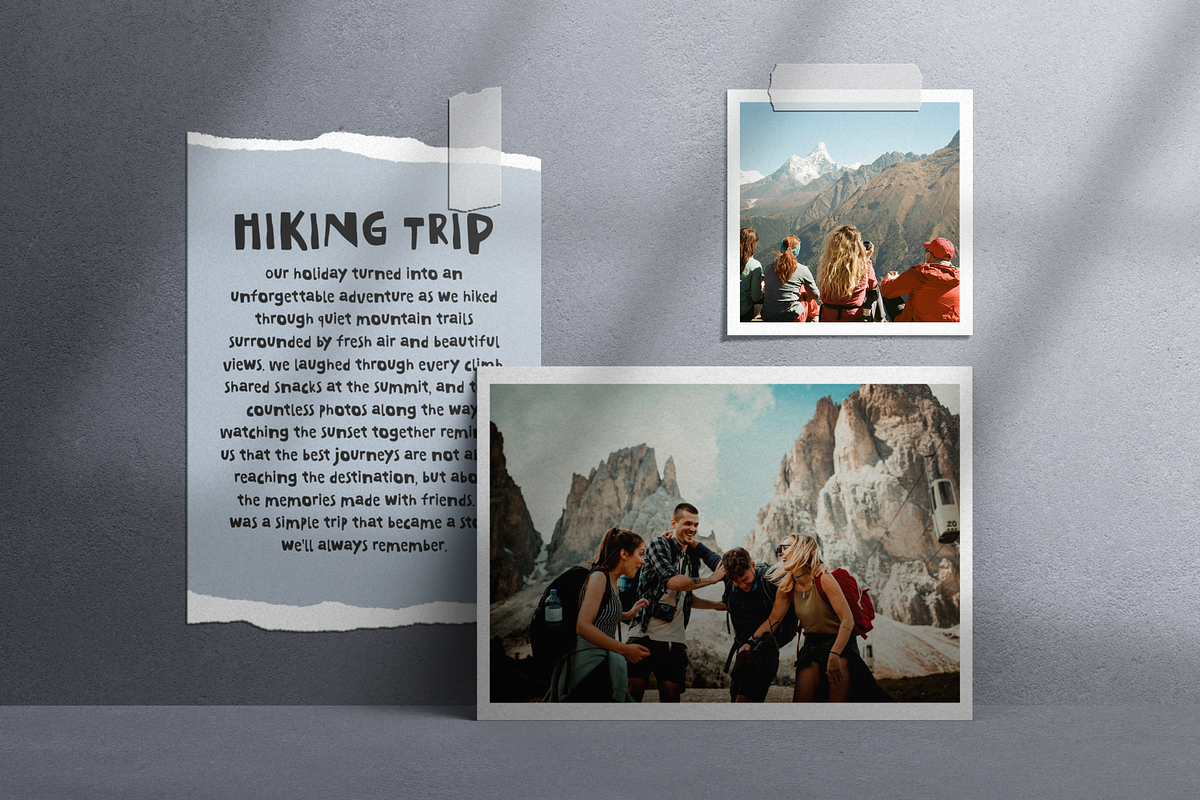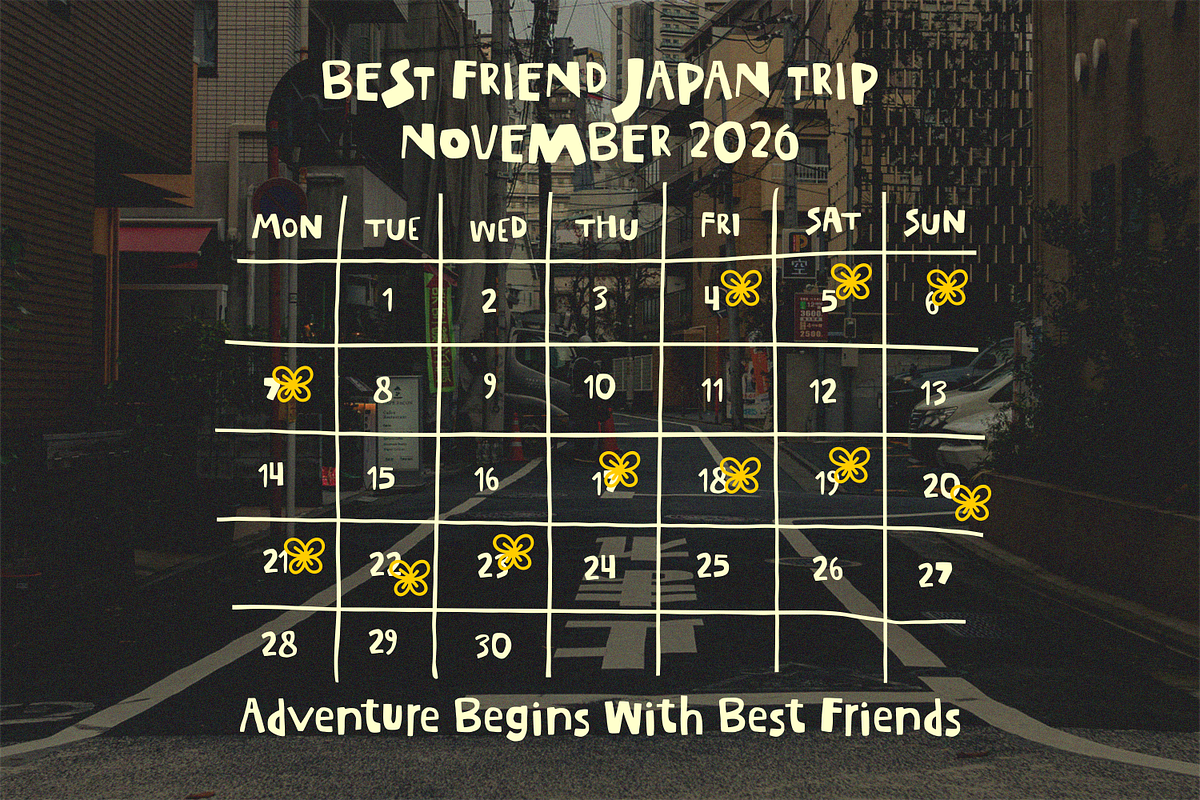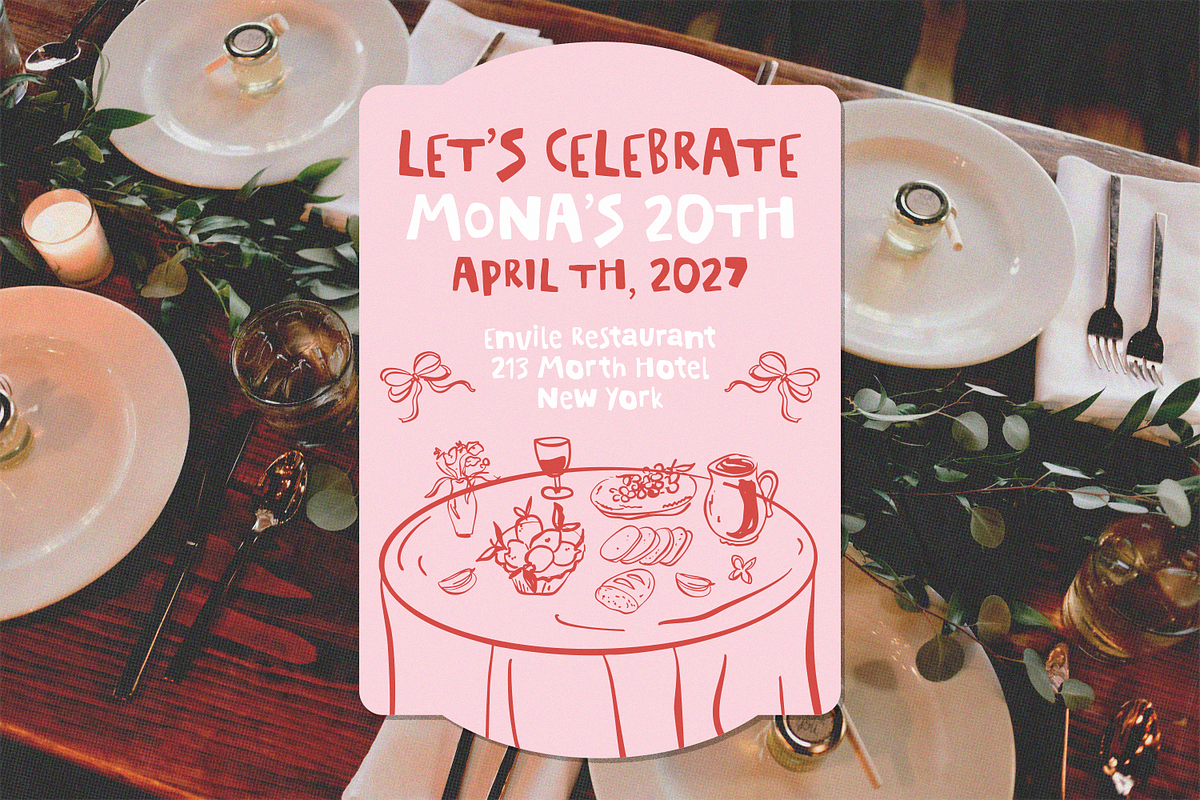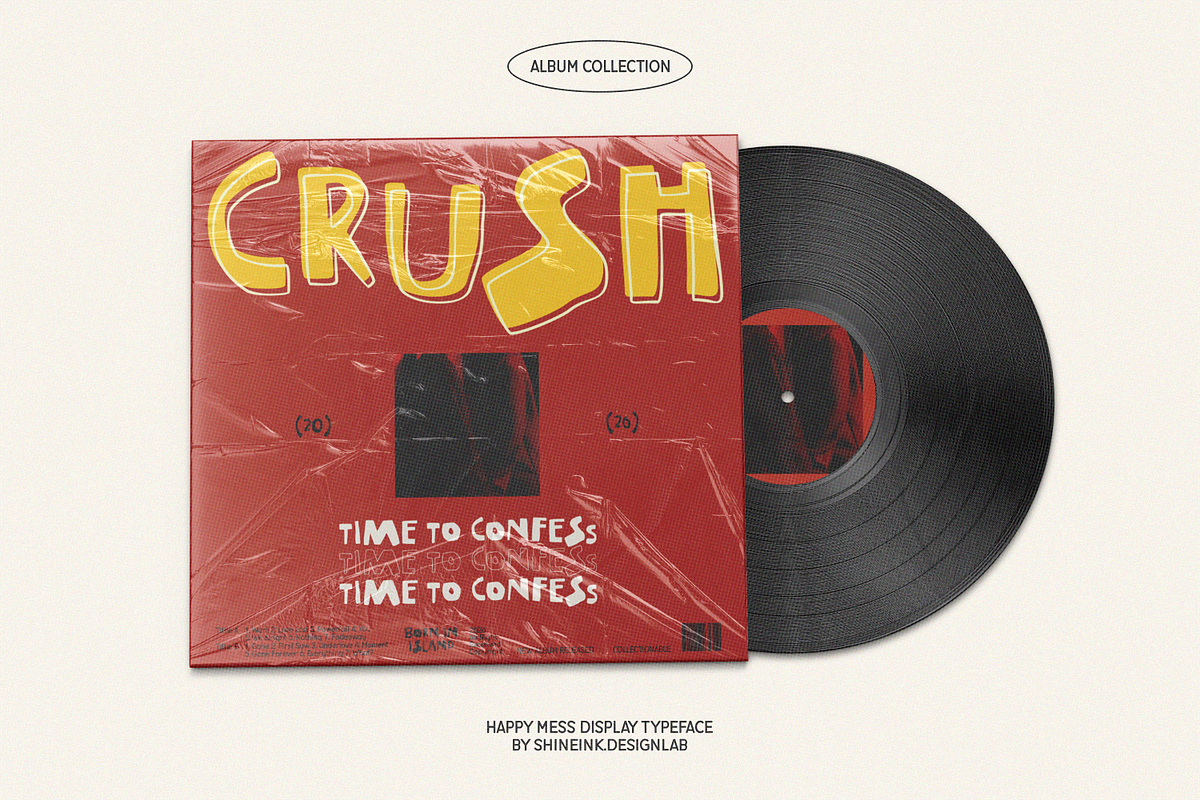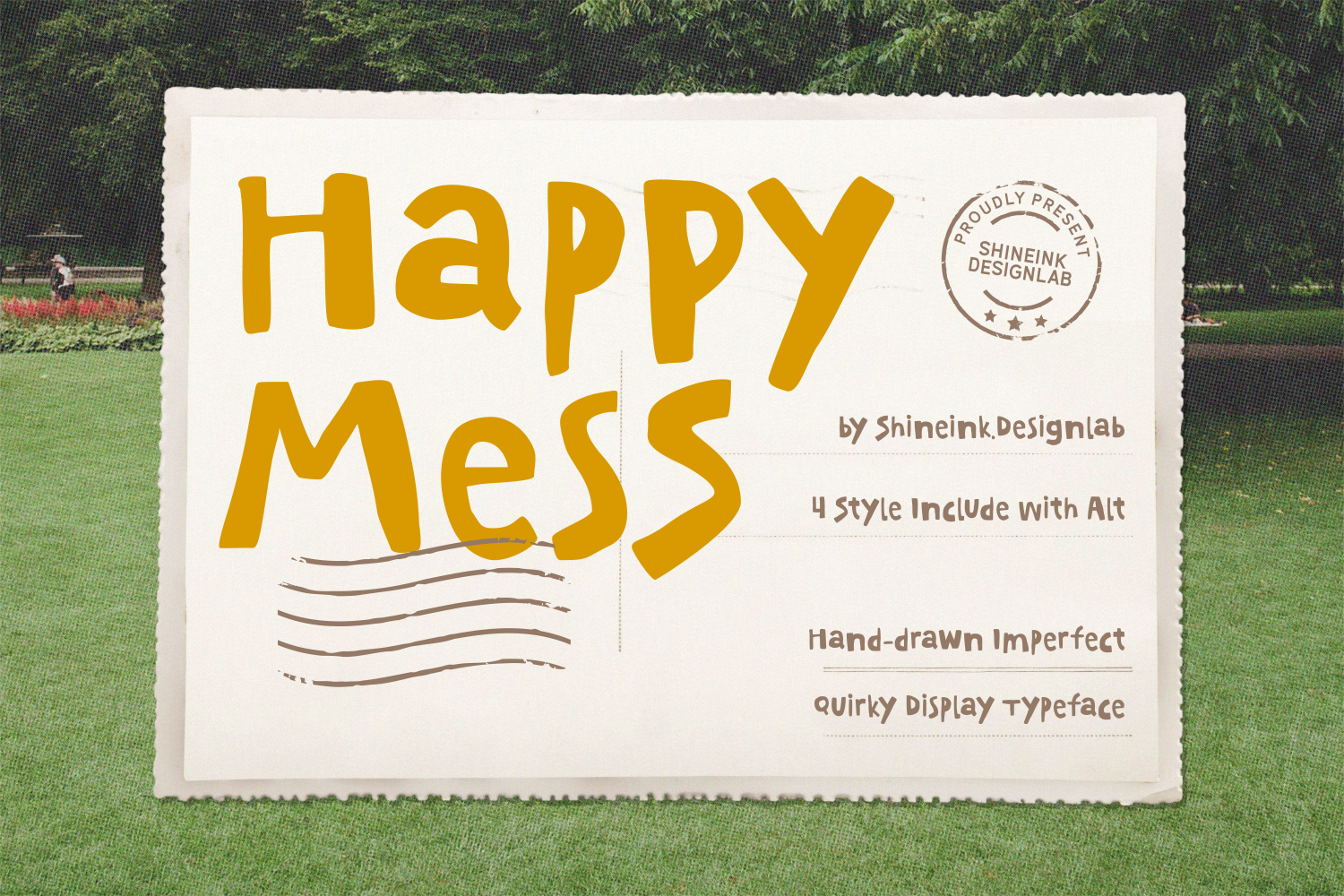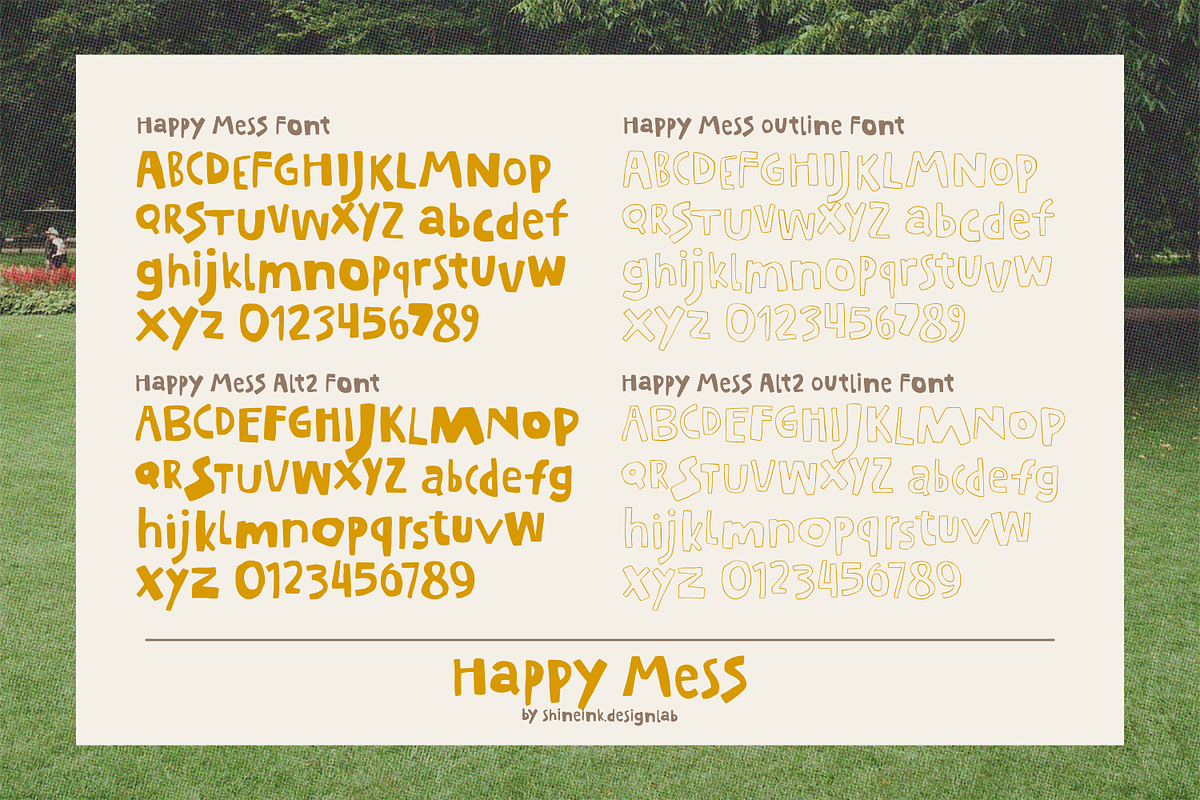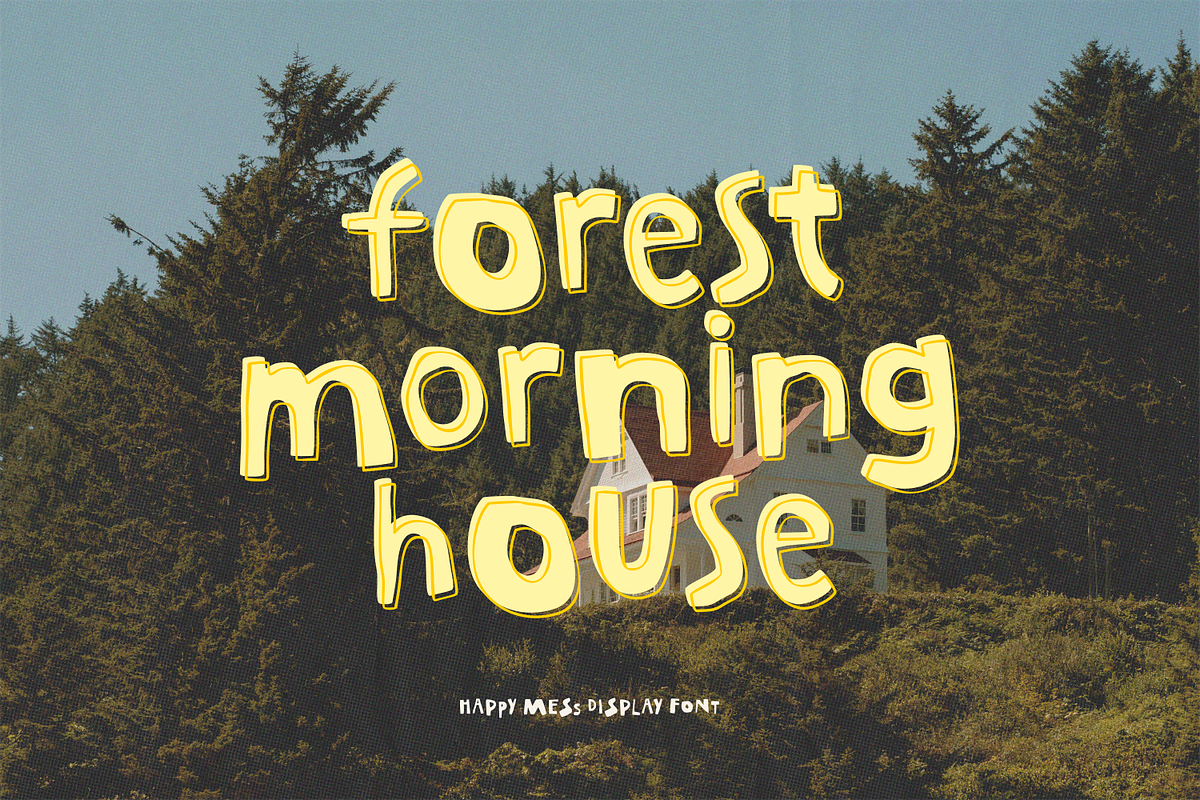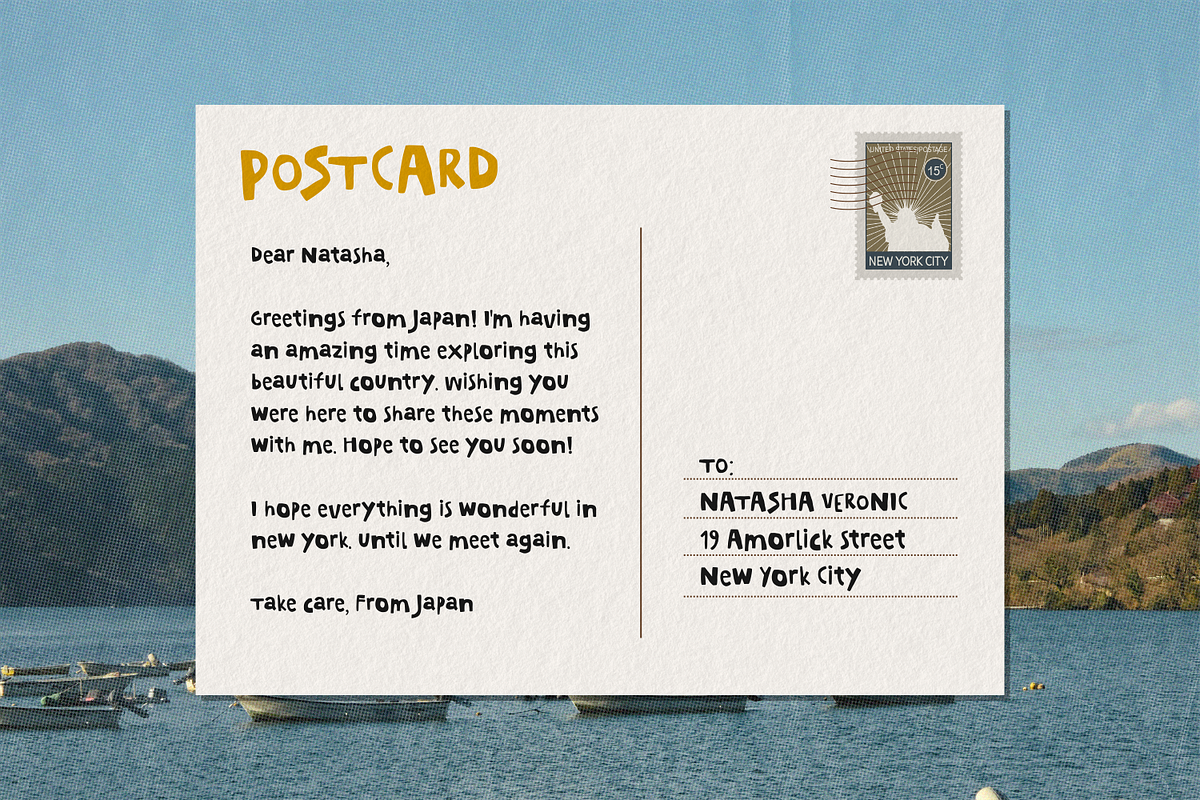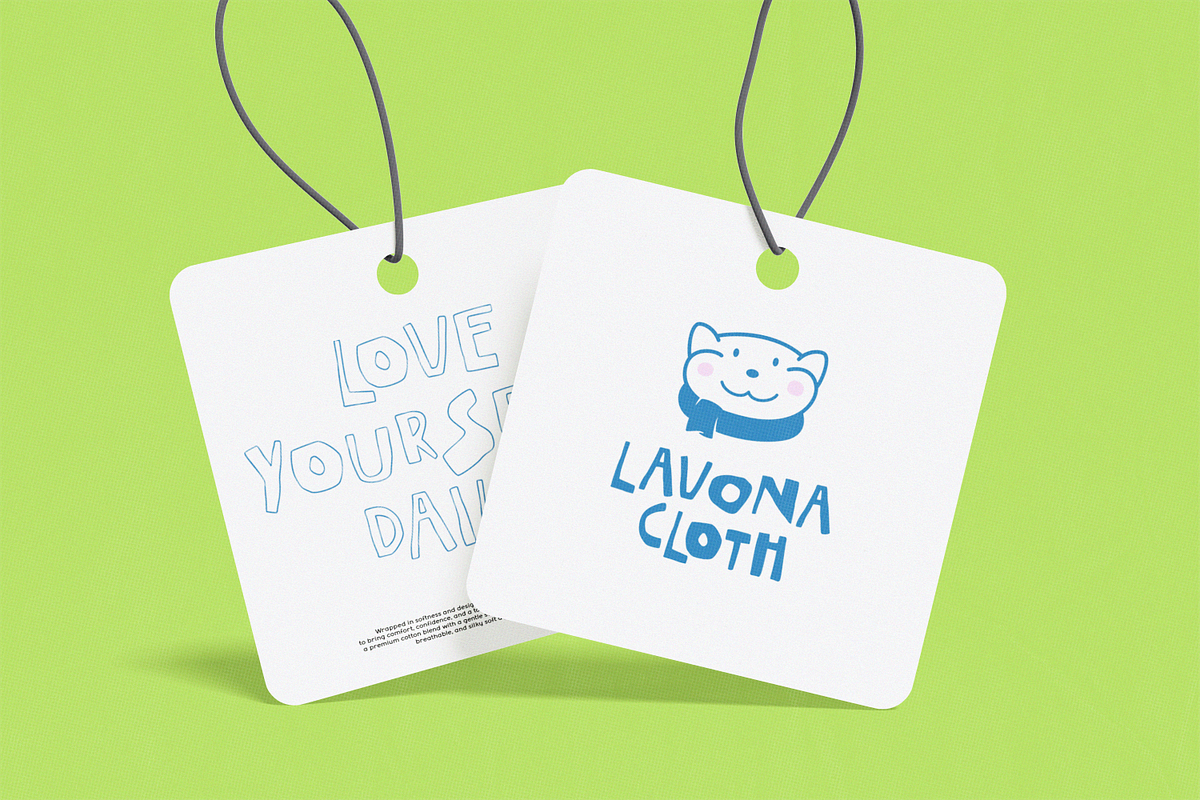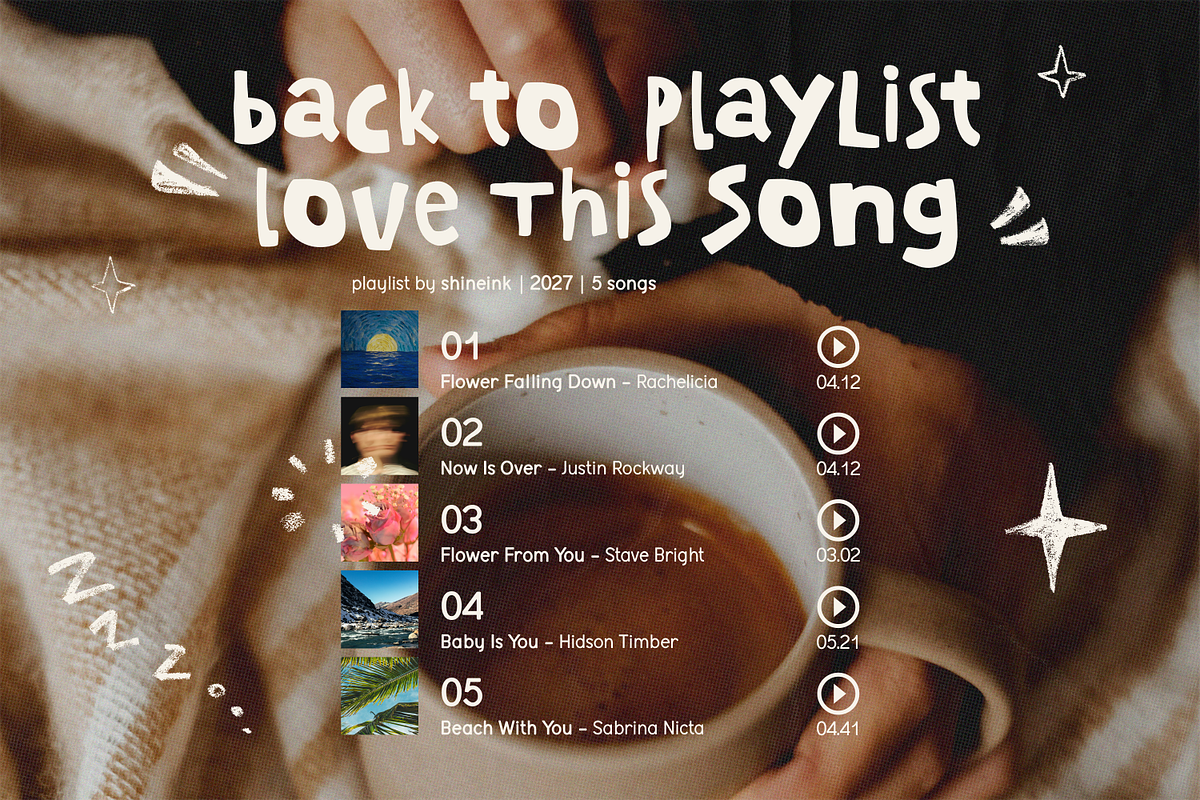
Happy Mess – Handmade Display Font
Meet Happy Mess, a playful hand-drawn display font created for designers who love imperfect, expressive, and joyful typography.
Every letter is intentionally crafted with uneven curves, quirky proportions, and natural imperfections to create an authentic handmade feeling. It brings warmth, personality, and playful energy into every project without trying too hard.
As part of the growing Chaos Universe by shineInk.designlab, Happy Mess continues the same creative spirit introduced by Morning Chaos and Cutout Chaos fonts designed to celebrate imperfections and spontaneous creativity.
1. Lowercase and Uppercase
2. Numerals & Punctuation
3. Accented characters
4. Multiple Languages Supported
5. 4 Style Font : REGULAR, OUTLINE, ALT2, ALT2 OUTLINE
Designed with fun in mind, Happy Mess gives every word a unique handcrafted personality while remaining highly readable.
If you enjoy expressive typography with playful imperfections, Happy Mess is ready to bring more character to your next project.